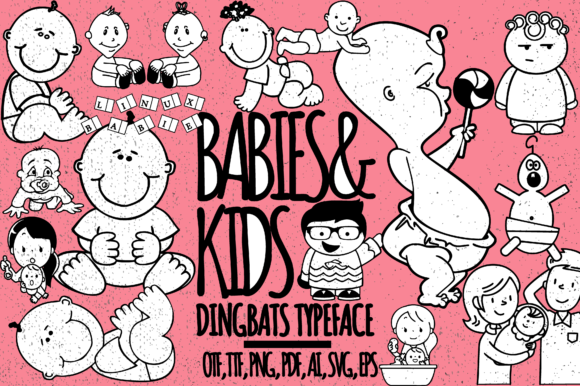
Unlocking the Power of Whimsy: Exploring the Babies and Kids Font
Who hasn’t been inspired by a simple doodle or a playful scribble from their little one? As designers, we’re no strangers to the magic of creativity sparked by the unbridled imagination of children. It’s moments like these that remind us of the importance of simplicity, playfulness, and joy in our work.
Enter the Babies and Kids Font, a dingbats typeface designed to tap into this same sense of wonder. By typing letters and numbers, you can generate a wide range of adorable children-related cartoons, from smiling babies to playful kids. This versatile font is a valuable tool for designers looking to add a touch of whimsy to their projects, from children’s books to advertising campaigns.
Babies and Kids Font Key Features
- Unique Characteristics: Features playful, childlike letterforms with rounded edges, making it perfect for children’s educational materials, nursery decor, and baby-related products.
Babies and Kids Font Review
I recently had the chance to work with the “Babies and Kids Font”, and I must say it’s a delightful addition to any design project involving young ones. ✨ The font’s playful and whimsical feel immediately captures the imagination, making it perfect for children’s books, nursery decor, and educational materials.
The font’s flexibility is also a major plus, with a range of weights and styles available to suit different design needs. From bold headings to delicate body text, the font adapts seamlessly to its surroundings. ✨ Additionally, the font’s compatibility with various digital platforms is a significant advantage, ensuring that your design will look great on both print and screen.
While the “Babies and Kids Font” is a solid choice, there are a few areas for improvement:
- ⚠️ Limited customization options: While the font’s flexibility is a plus, some designers may find the lack of customization options restrictive. For instance, users may struggle to achieve a specific look or feel without resorting to additional design elements.
- ⚠️ Potential overuse: The font’s playful nature can be overwhelming if used excessively. Designers must strike a balance to avoid making their design feel too childish or amateurish.
Overall, I’m impressed with the “Babies and Kids Font”. While it may have its limitations, it’s a great choice for designers looking to create engaging and child-friendly content. With some creative restraint, this font has the potential to elevate your designs and leave a lasting impression on your audience.
Babies and Kids Font: A Practical Application Guide
The Babies and Kids Font is ideal for:
- Children’s books and educational materials.
- Marketing materials for kids’ products and services.
- Designing nursery decor and kids’ party invitations.